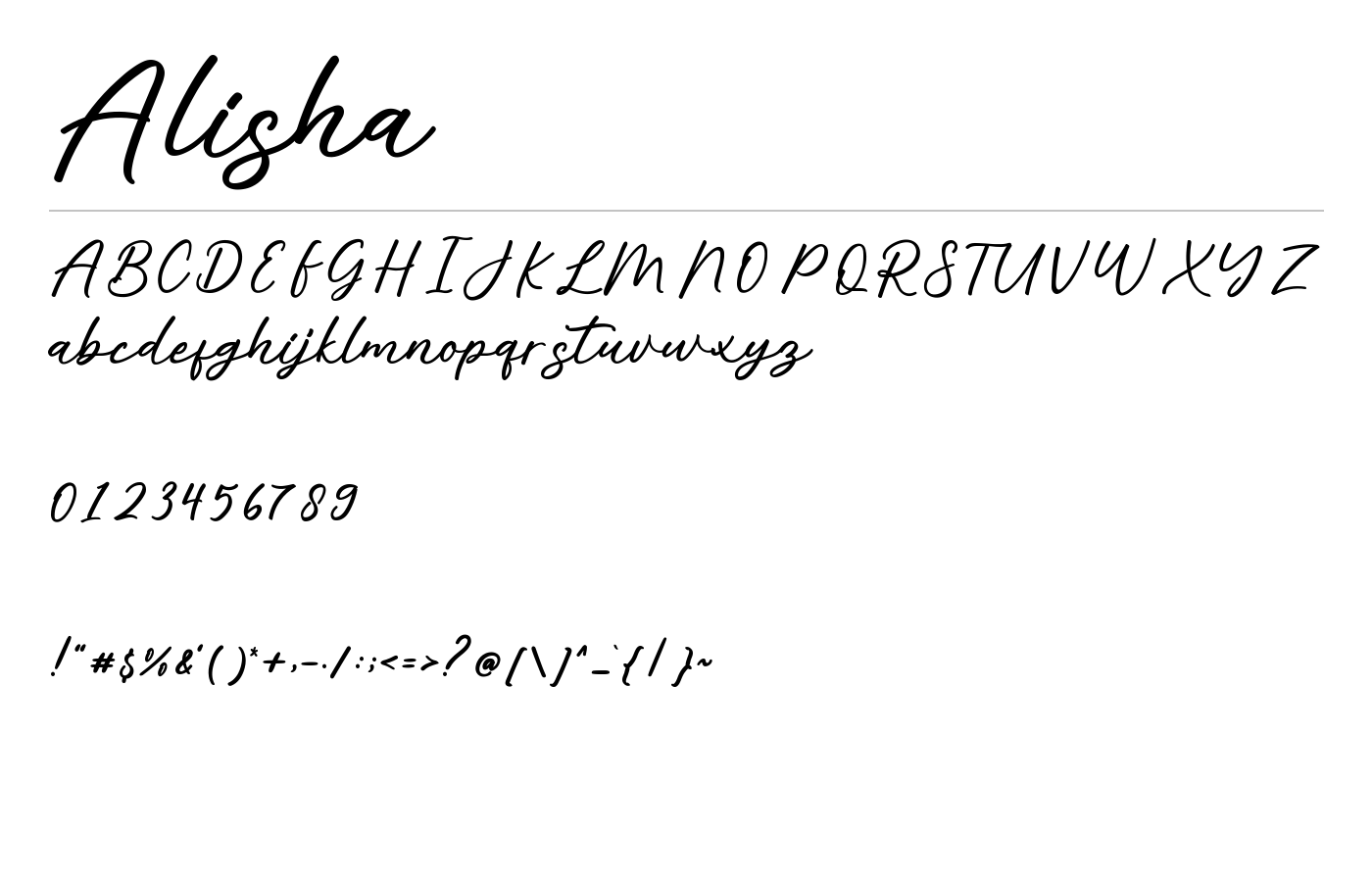
Alisha is a graceful script font with a clean, handwritten style that lends a personal and elegant touch to any design. Its smooth, flowing strokes and moderate contrast create a light and airy feel, perfect for invitations, branding, and stylish editorial work. This font works well for projects that seek a modern yet approachable aesthetic with a hint of sophistication.
Alisha Font
About Alisha Font
| Font family | Alisha Font |
| Designer | Agung Rohmat |